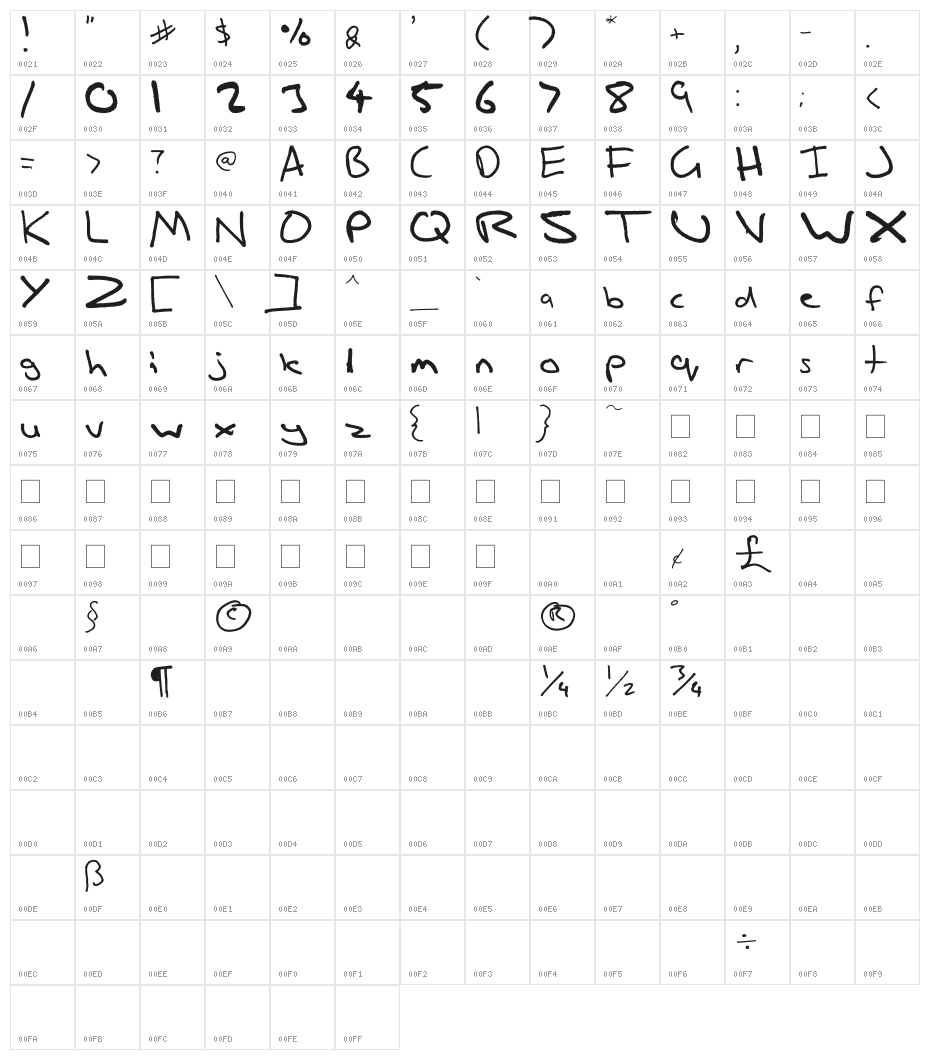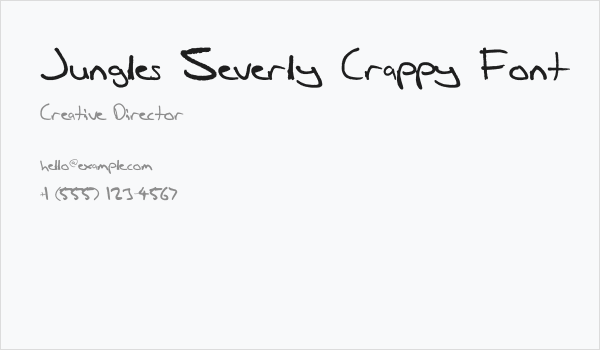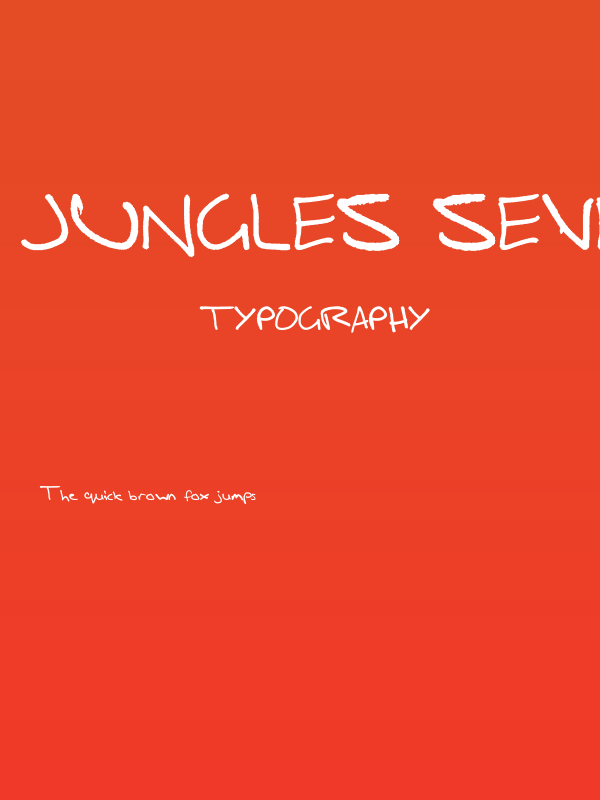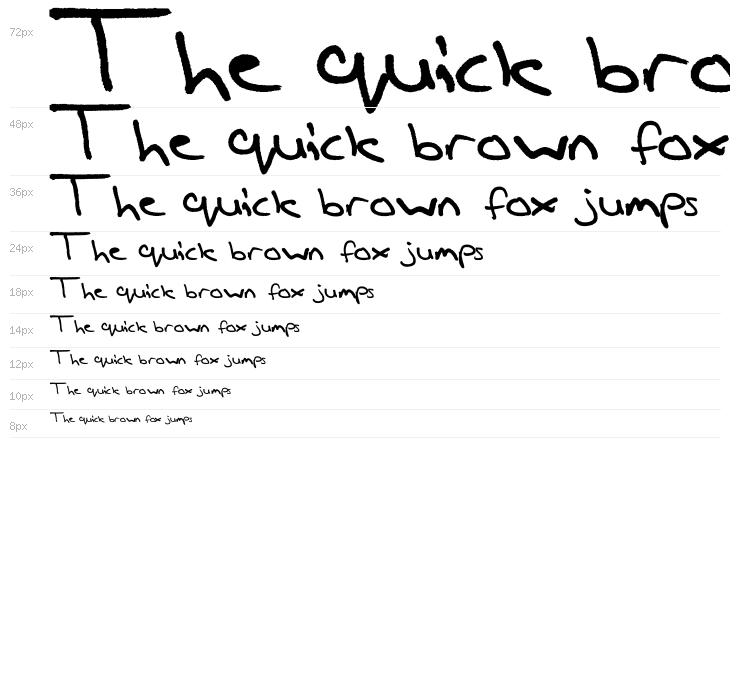
Jungles Severly Crappy Font Font
Jungles Severly Crappy Font Description
This font features a playful and informal handwritten style, characterized by uneven strokes and a casual appearance. The letters are irregular in size and shape, giving it a spontaneous and dynamic feel. The uppercase and lowercase letters maintain a consistent style, with rounded edges and a slightly tilted orientation. The numbers and special characters follow the same informal aesthetic, adding to the font's quirky charm. This font is ideal for projects that require a personal touch or a relaxed vibe, such as children's books, greeting cards, or casual branding.
| Proposed Projects | Children's books, greeting cards, casual branding, personal notes. |